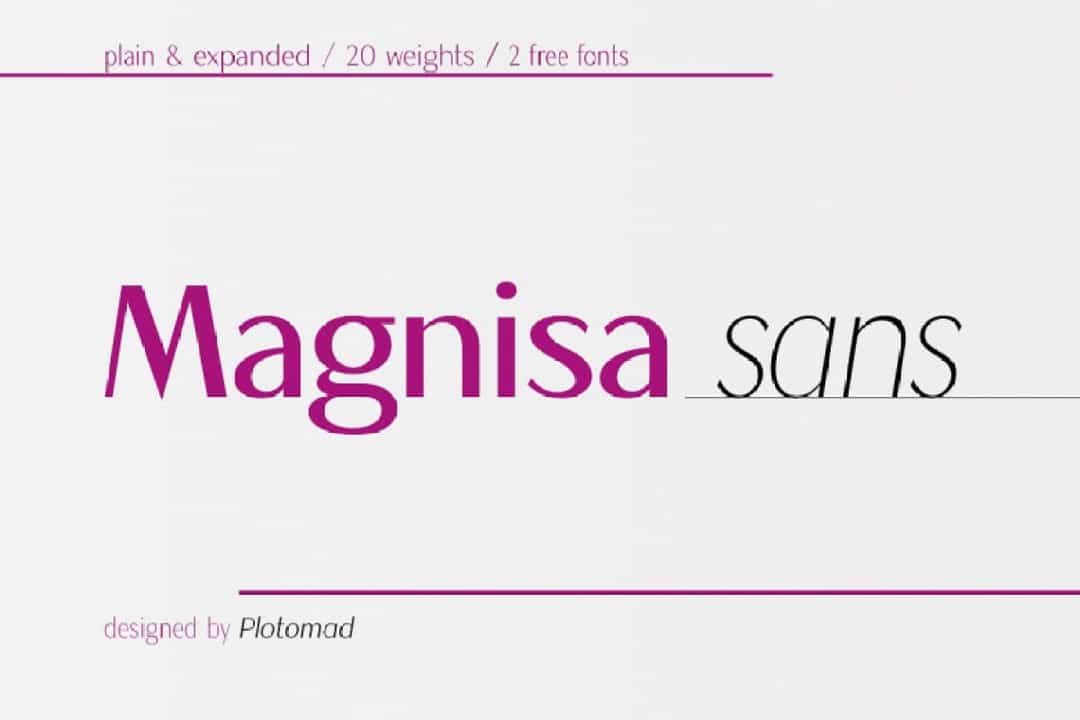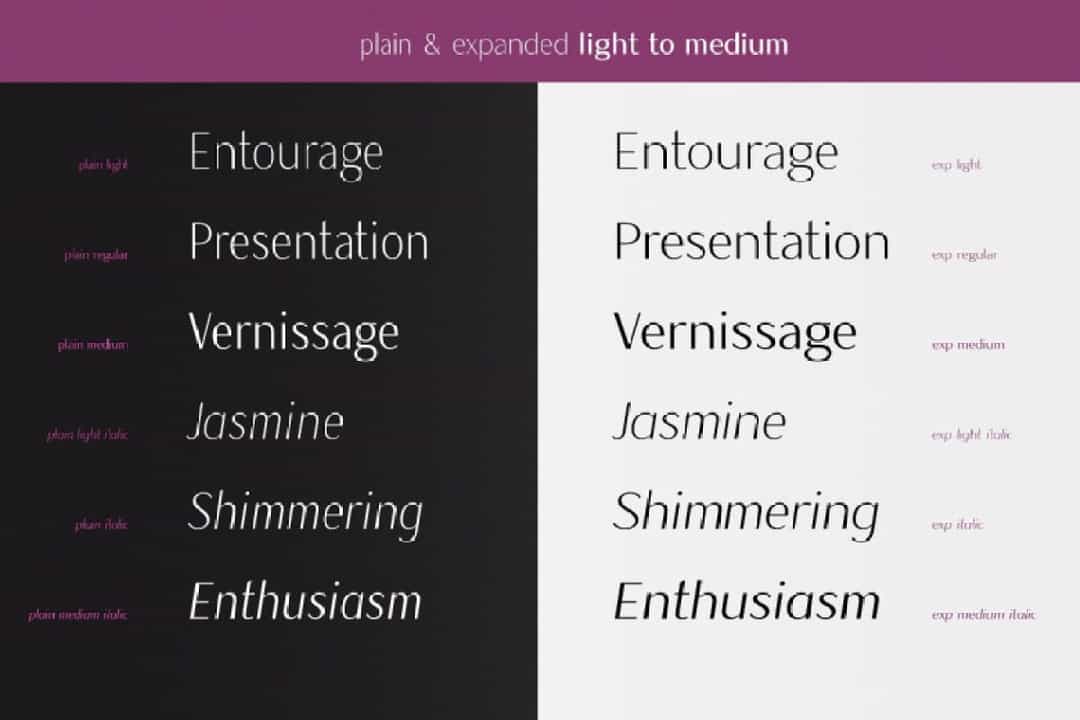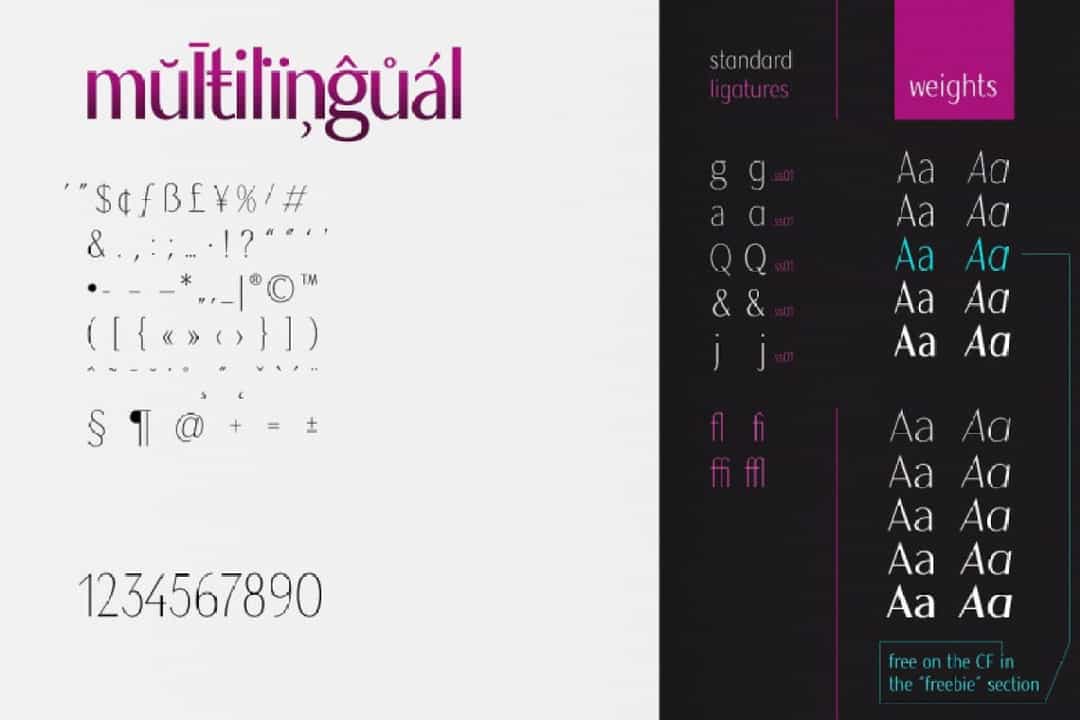
Magnisa Sans is an elegant sans serif font that effortlessly marries sophistication with modernity, boasting clean and elegant characteristics to provide a sleek appearance for editorial design, premium projects and beyond. A must-have choice for designers looking to achieve that sleek appearance, Magnisa Sans is a stunning option worth adding into any collection of fonts.